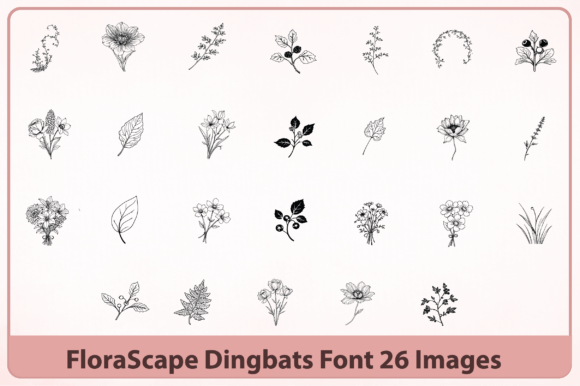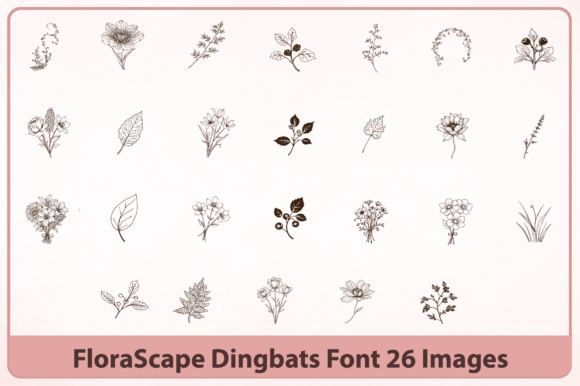
Introduction to Florascape Font
Do you ever find yourself staring at a blank design canvas, wishing you had the time and skills to create the perfect hand-drawn elements? Whether you’re working on a branding project or a digital scrapbook, adding a touch of whimsy can elevate your design from ordinary to extraordinary. For designers, finding the right design resource can be a game-changer – and that’s exactly what the Florascape Font offers.
Imagine having access to a library of quirky leaves, swirling vines, and charming florals that can be easily dropped into your project. With the Florascape Font, you can do just that. This playful dingbat font is packed with high-quality, customizable elements that can add a touch of personality to any design. And the best part? It’s available for free download, complete with transparent backgrounds for seamless integration into your creative project.
Key Features of Florascape Font
- High-quality design resource for creative projects, ideal for use in graphic design, digital art, and web design.
- Features a unique, hand-drawn style that adds a touch of whimsy and personality to any design project.
- Includes a comprehensive character set, including uppercase and lowercase letters, numbers, and punctuation marks, making it a versatile and practical design resource.
Honest Review: Florascape Font
As a designer, I’m always on the lookout for high-quality design resources to elevate my creative projects. The Florascape Font is one such gem that caught my attention. Let’s dive into what makes it stand out and where it falls short.
What works well: ✨ The Florascape Font has a unique, whimsical style that’s perfect for projects that need a touch of nature. It’s a free download, which is always a bonus, and comes with a transparent background, making it easy to integrate into your design. The font is also highly customizable, allowing you to tweak the size, color, and style to suit your needs.
- Unique, whimsical style
However, there are a few limitations: ⚠️ The font may not be suitable for projects that require a more formal or professional tone. Additionally, the font files may not be compatible with all design software or operating systems.
Overall, I’m impressed with the Florascape Font’s potential to add a creative touch to projects. While it may not be the best fit for every design, it’s definitely worth considering for those looking for a unique, high-quality font to elevate their work.
Common Use Cases for Florascape Font
Florascape Font is ideal for creative projects such as wedding invitations, branding materials, and social media graphics. Its unique design makes it perfect for designers looking for a high-quality, free download to add to their design arsenal.